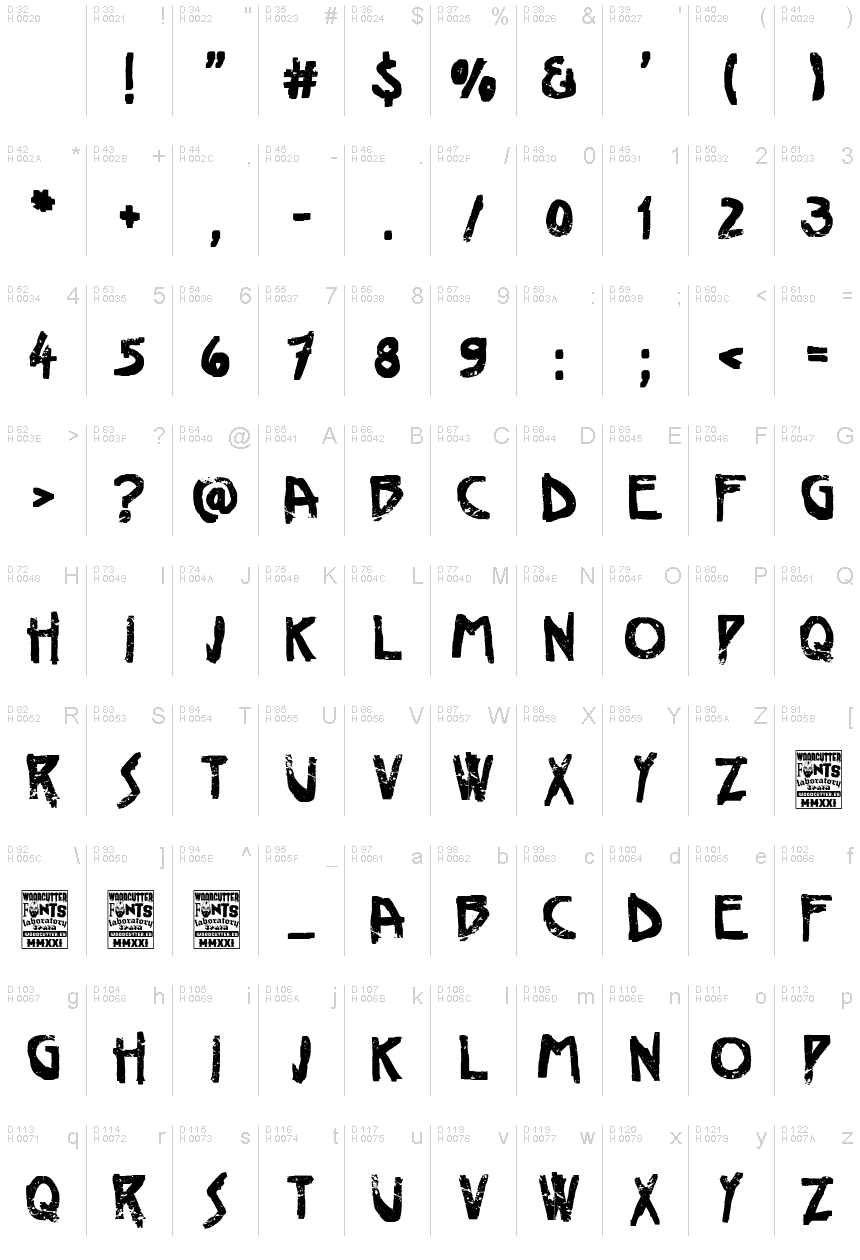
Deco Slaughter
Deco Slaughter, designed by Woodcutter, is an attention-grabbing display font that exudes a distinctive eroded style. With its bold and all caps design, this font is perfect for creating striking headlines, logos, and posters that demand immediate attention. Its edgy and worn-out appearance makes it suitable for various projects such as vintage-inspired designs, horror movie titles, or even grunge-themed album covers. Give your creations a touch of raw energy and unleash the power of Deco Slaughter in your next creative endeavor.